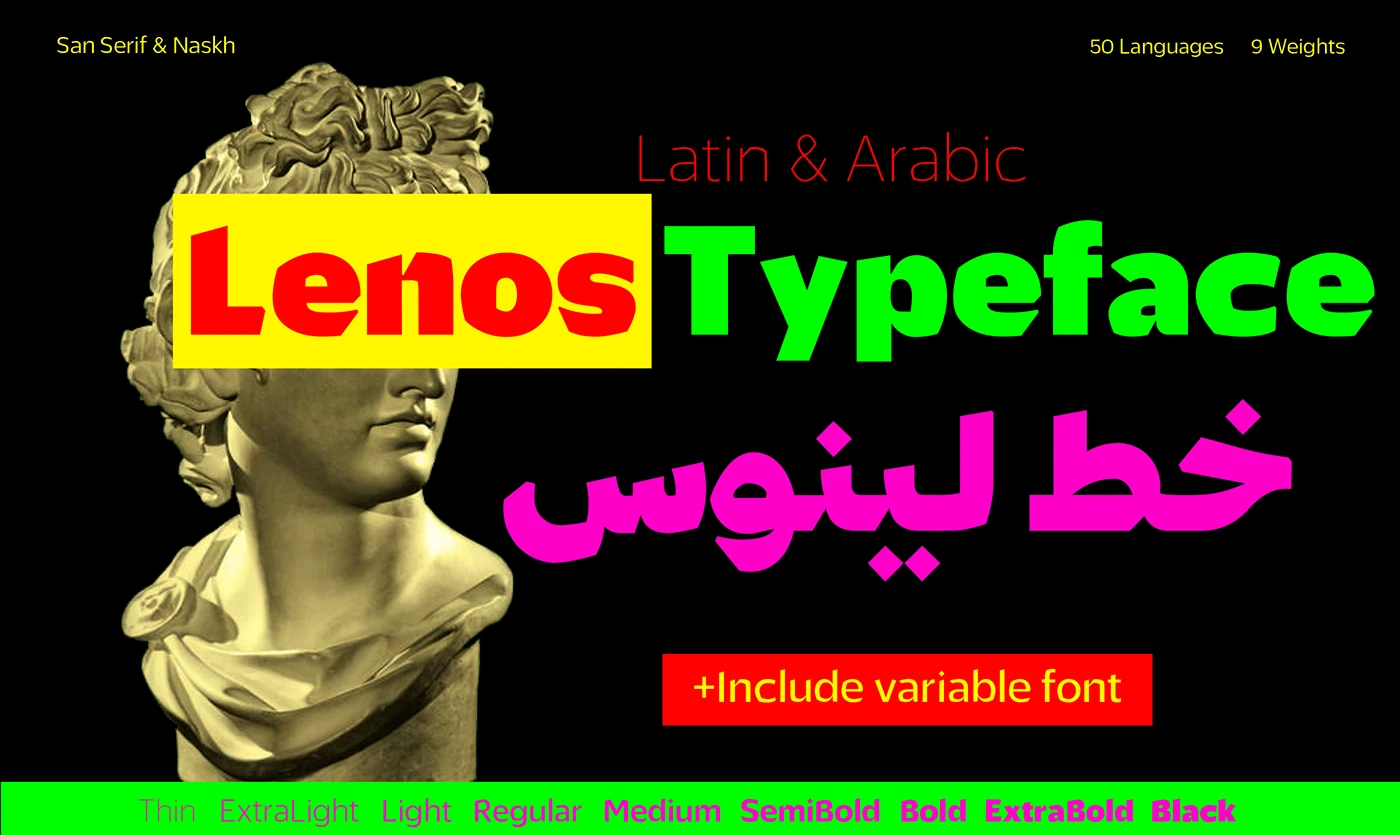
Lenos Font Family Latin And Arabic
Linus represents a monumental achievement in contemporary Arabic typography—a complete reimagining of the beloved Naskh script for the modern world. By blending the organic warmth and readability of traditional Naskh with precise contemporary design, this extensive font family offers designers an unprecedented tool for creating sophisticated work across dozens of languages and cultures.
Design Philosophy:
• Modern interpretation of classical Naskh calligraphy
• Organic, warm character with contemporary precision
• Powerful family system for complete design control
• Seamless blend of tradition and innovation
Complete Font Family – 9 Weights:
• Thin: Delicate, elegant for refined applications
• Extra Light: Subtle presence for special uses
• Light: Gentle weight for extended text
• Regular: Balanced, versatile for general use
• Medium: Stronger presence for emphasis
• Semi-Bold: Bold character for subheadings
• Bold: Powerful for headlines
• Extra Bold: Maximum impact for displays
• Black: Ultimate weight for dramatic statements
• Plus all oblique (italic) options for each weight
• Unprecedented typographic flexibility
Language Support:
• Over 50 languages supported
• Arabic: Complete Arabic character set
• Persian (Farsi): Full Persian-specific characters
• Urdu: Complete Urdu language support
• Spanish: Full Latin character set
• Turkish: Complete Turkish support
• And many more languages
• True global typographic solution
• Global Branding: International brand identities
• Editorial Design: Books, magazines, publications worldwide
• Web Design: Multilingual digital experiences
• Mobile Applications: Global app interfaces
• Print Materials: International brochures, flyers
• Packaging: Products for global markets
• Corporate Communications: Multinational materials
• Advertising: Campaigns reaching diverse audiences
• Academic Publishing: Scholarly works in multiple languages
• Nine Weights: Unprecedented design flexibility
• Global Reach: Over 50 languages supported
• Organic Beauty: Modern Naskh interpretation
• Complete Family: All oblique options included
• Professional Quality: High-caliber font for serious work
• Versatile Application: Digital and offline ready
• Time-Saving: One family for global projects
Key Features of Linus Font Family:
• 9 weights: Thin to Black with all oblique options
• Modern Naskh interpretation with organic warmth
• Supports over 50 languages including Arabic, Farsi, Urdu, Spanish, Turkish
• Complete character sets for all supported languages
• Perfect for international and multilingual design
• International brand designers
• Multilingual publishing professionals
• Global web and app developers
• Corporate communications for multinational companies
• Advertising agencies with diverse audiences
• Anyone needing comprehensive multilingual typography